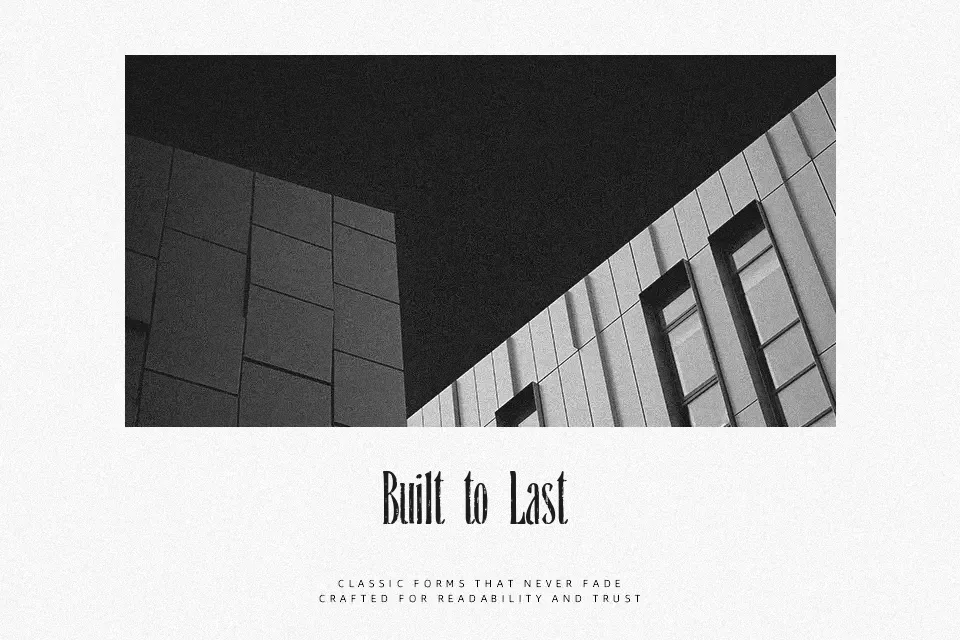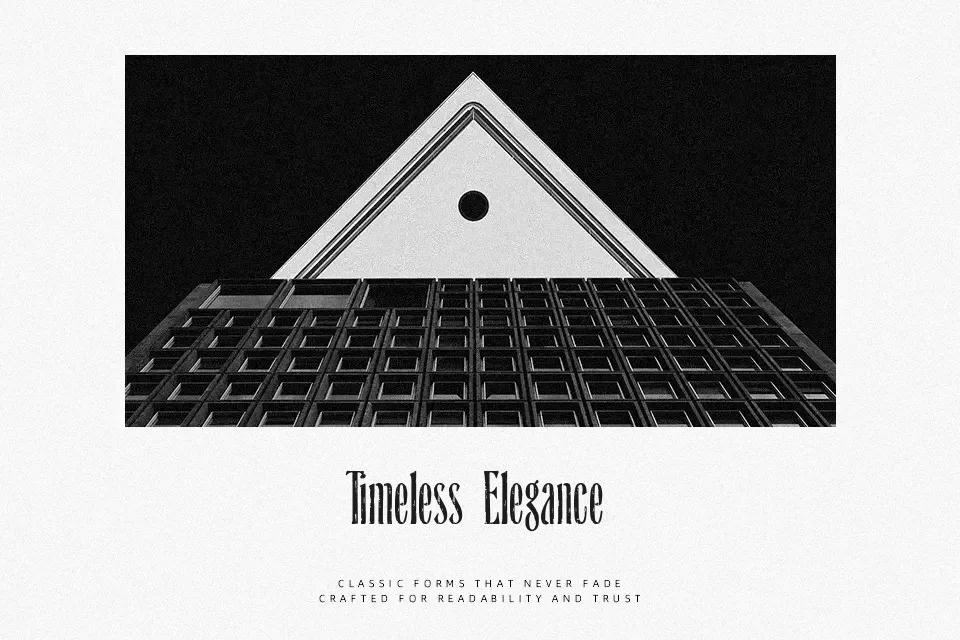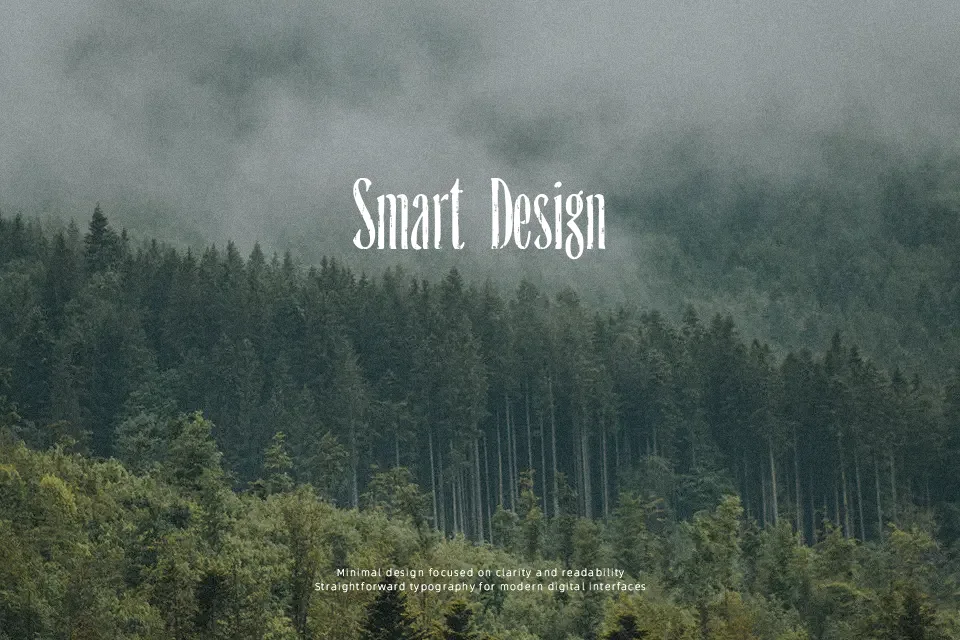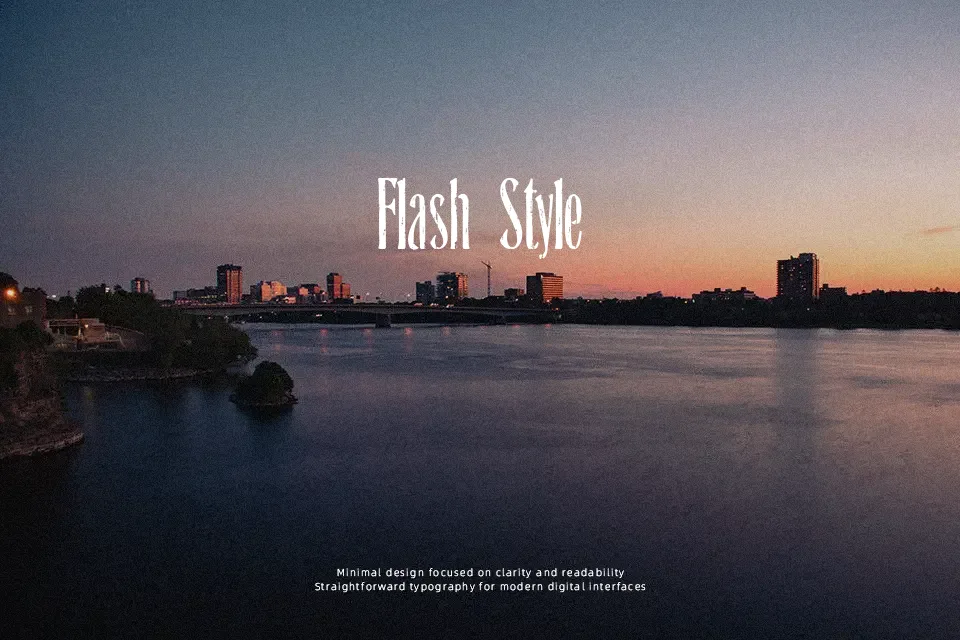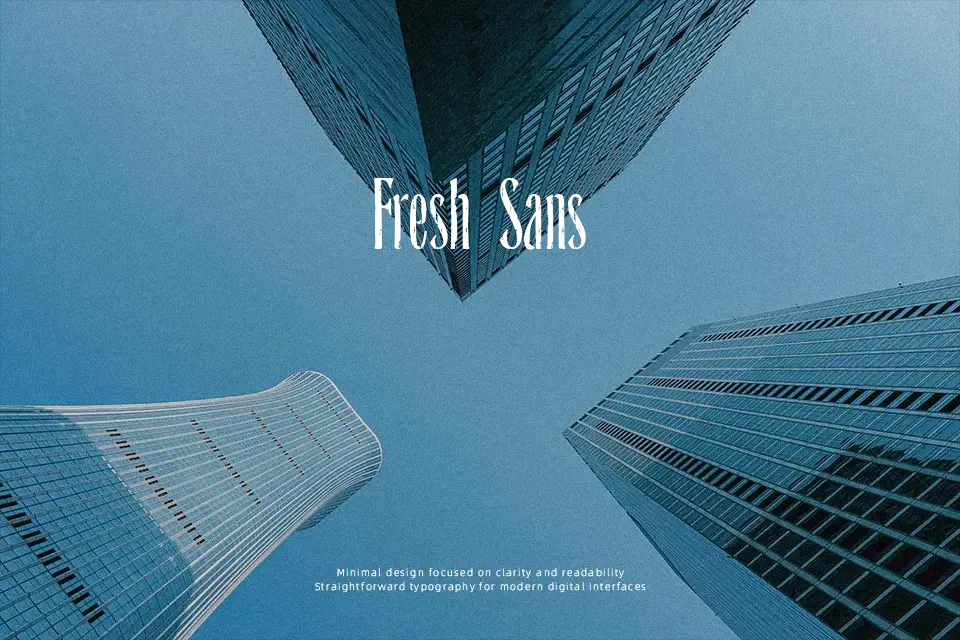
The French Quarter Font
The French Quarter Font combines sturdy serif architecture with deliberate stroke contrast and generous character proportions that command attention in display formats. Its disciplined spacing and pronounced terminal structures support clear recognition across large-scale applications such as boutique storefronts, thematic posters, and menu titles. While the letterforms remain distinct in short phrases, the pronounced decorative weight reduces reading comfort when applied to smaller text. Consequently, the typeface is less effective for long-form narrative layouts or compact informational captions where unadorned text faces perform better.
Best For: vintage product packaging, boutique restaurant signage, hospitality branding, poster headlines
Not Ideal For: long paragraph text, mobile interface labels, dense editorial layouts, technical manuals
Perfect for branding, headline, and packaging, with a bold and decorative style.